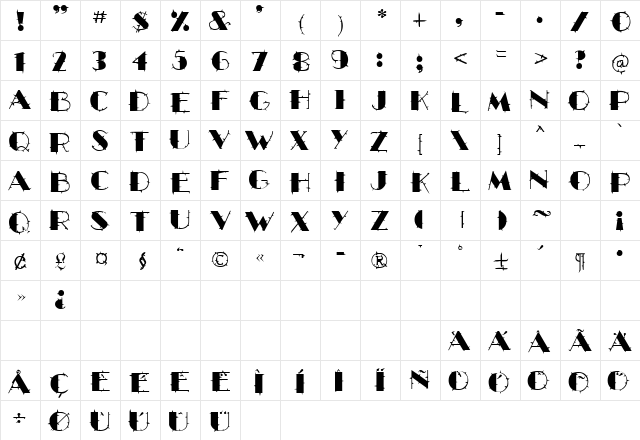
GLitzyBarbed Regular
Design Context for GLitzyBarbed Typeface
GLitzyBarbed is a composed and adaptable typeface that performs quietly and consistently across a wide range of design contexts.